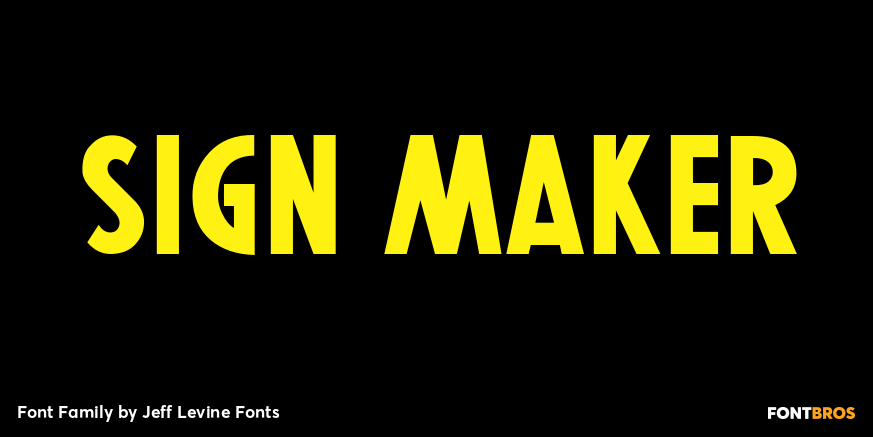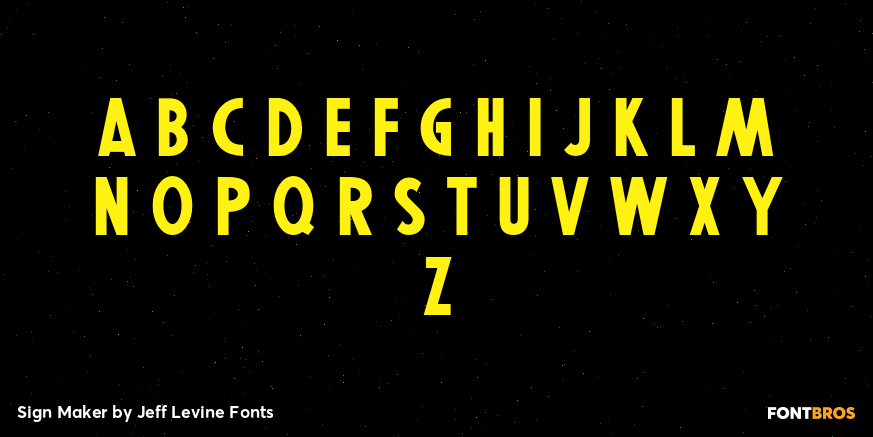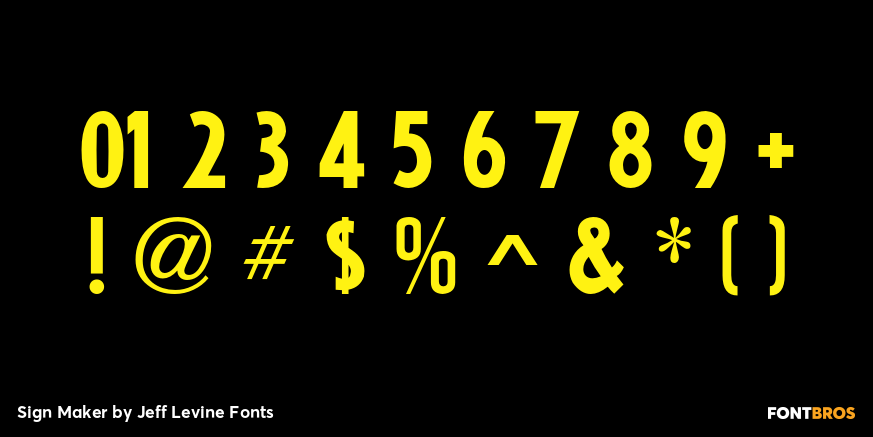
Sign Maker
In 1948, Joseph Struhl pioneered an innovative do-it-yourself sign kit for retail merchants. Die-cut letters and numbers made from flexible sheets of vinyl with the ability to adhere to smooth surfaces by static electricity; his "Magic Master Interchangeable Sign Kits" became a great success.
Jeff Levine has paid tribute to this innovative method of in-store advertising with Sign Maker JNL. Because of their die-cut shapes, the design style of the static cling letters have unique characteristics. Companion fonts (based on other Struhl sign kits) are Cling Vinyl JNL and Cling Vinyl Clear JNL.